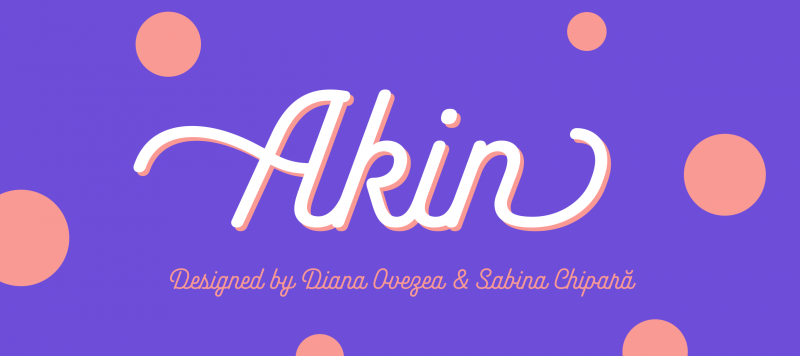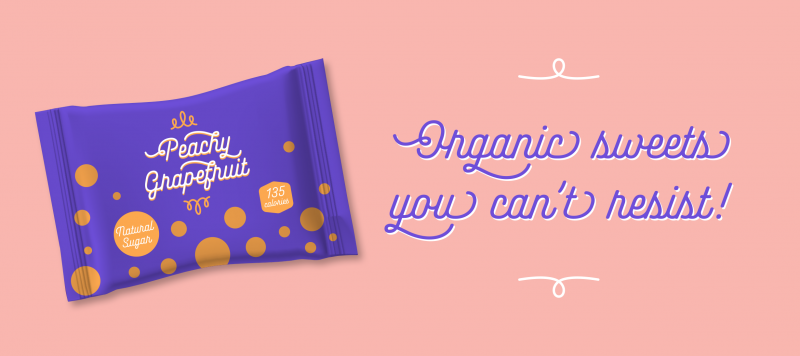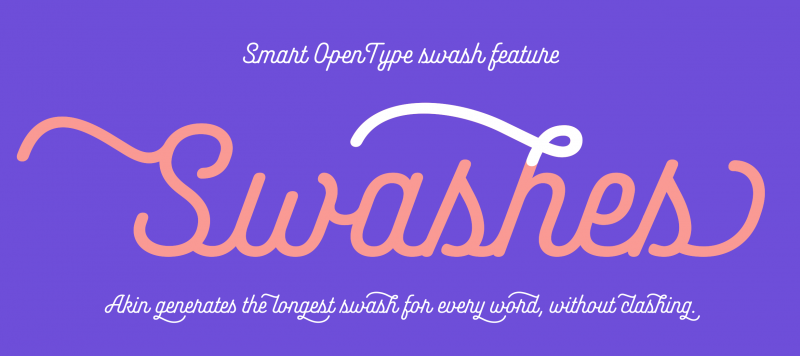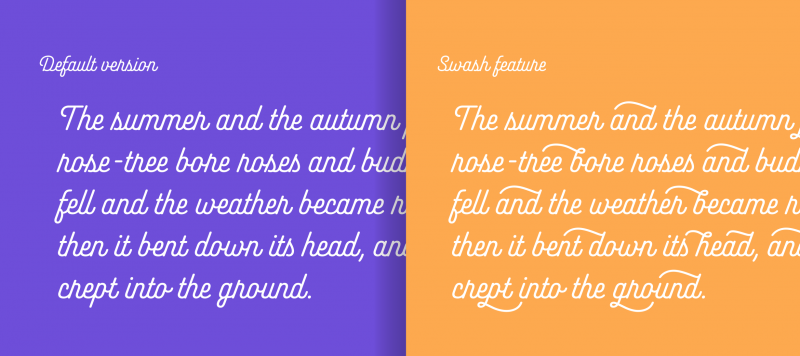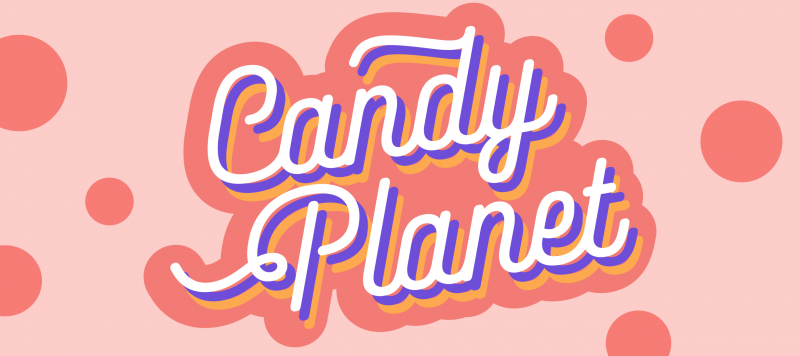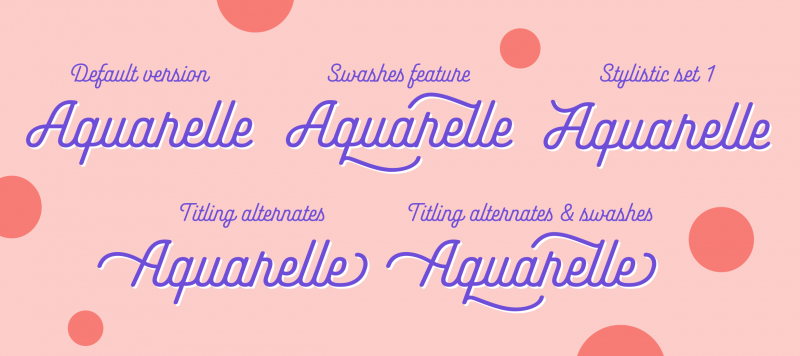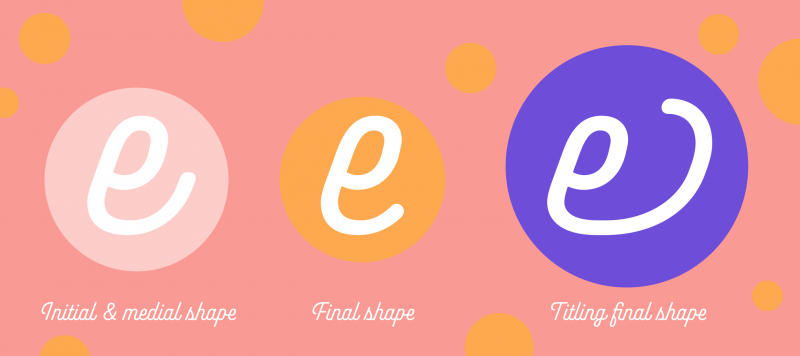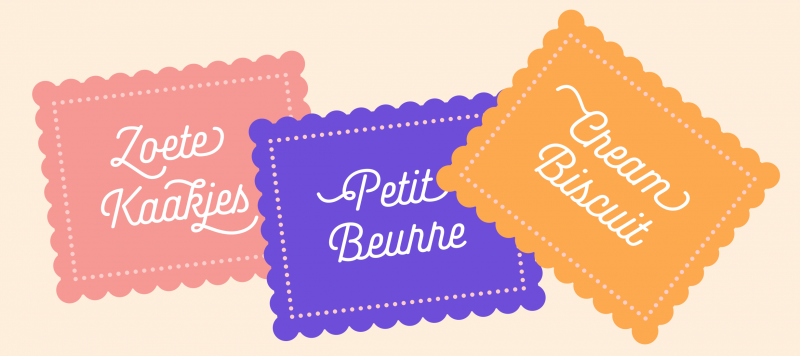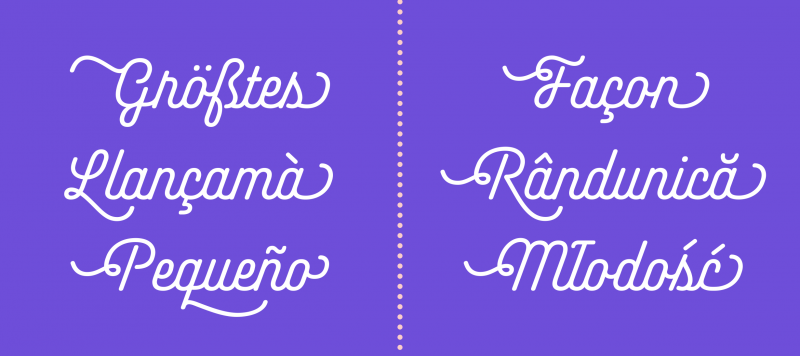
Akin is a monolinear script typeface designed in a single weight. Its letters’ designs combine geometric elements with a retro aesthetic, swashes, and a steep slope. Characters’ sides are straight, giving the typeface a condensed feeling overall. Akin’s design language feels reminiscent of both the 1950s and the 1990s, but there isn’t just one specific style that it cites: Akin is a timeless face, which looks like it could have always been a part of graphic design. Like almost every good OpenType script font, Akin has a lot of alternates. The most prominent feature is the font’s swashes. Swashes of various lengths can be automatically applied via an OpenType feature that reads the surrounding characters – in both directions – and inserts swashes that sweep above or below two or even three other letters (the font knows better than to let its swashes collide with capital letters, ascenders or descenders). Another technical feature in Akin substitutes specially-designed ‘final’ glyphs in for letters that come at the end of a word. Akin supports all European languages written with the Latin script.
Family Name | Akin |
Designer(s) | Diana Ovezea, Sabina Chipară |
Classification | Script |